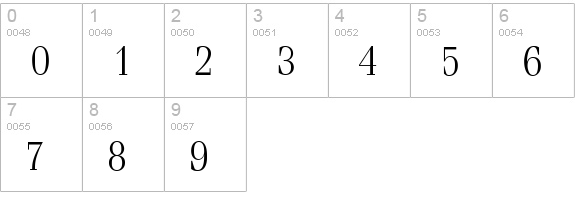
Fenice* Light is a refined, elegant variant in the Fenice* typeface family \xE2\x80\x94 well suited to elegant body text, refined sub-headings, and luxury branding.
Fenice Light font is a stunning typeface that exudes elegance and sophistication. With its delicate and graceful letterforms, this font is perfect for adding a touch of refinement to any design project. The slender strokes and subtle curves of Fenice Light create a sense of modernity and style, making it ideal for use in branding, editorial design, and more. What makes Fenice Light font even more appealing is that it is available for free download at FontsMarket.com. This means that you can easily access this beautiful typeface and use it in your projects without any cost. Whether you're a designer looking to elevate your work with a chic and stylish font or a business owner wanting to make a memorable impression with your branding, Fenice Light is the perfect choice. Download it now and add a touch of sophistication to your designs!